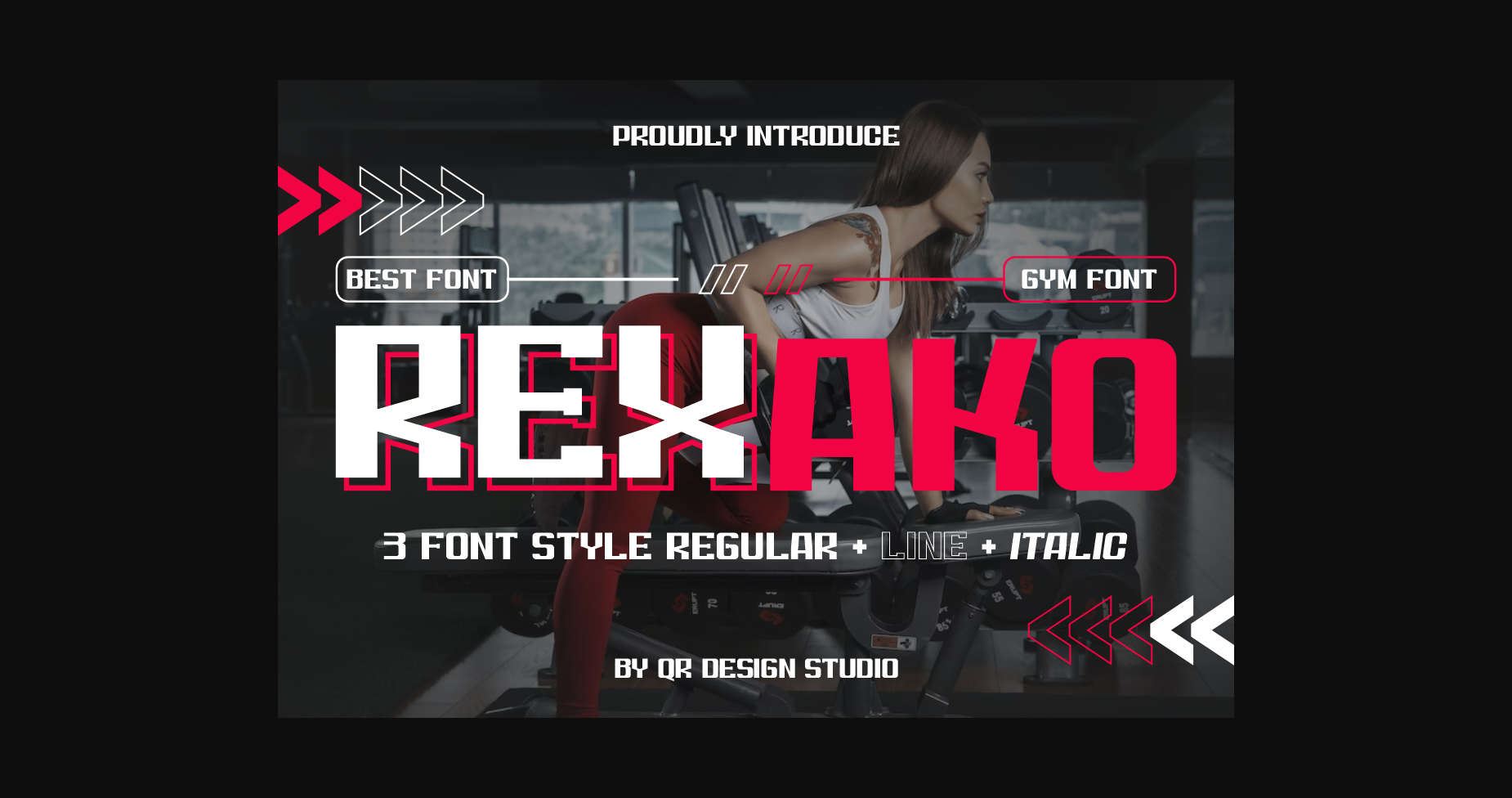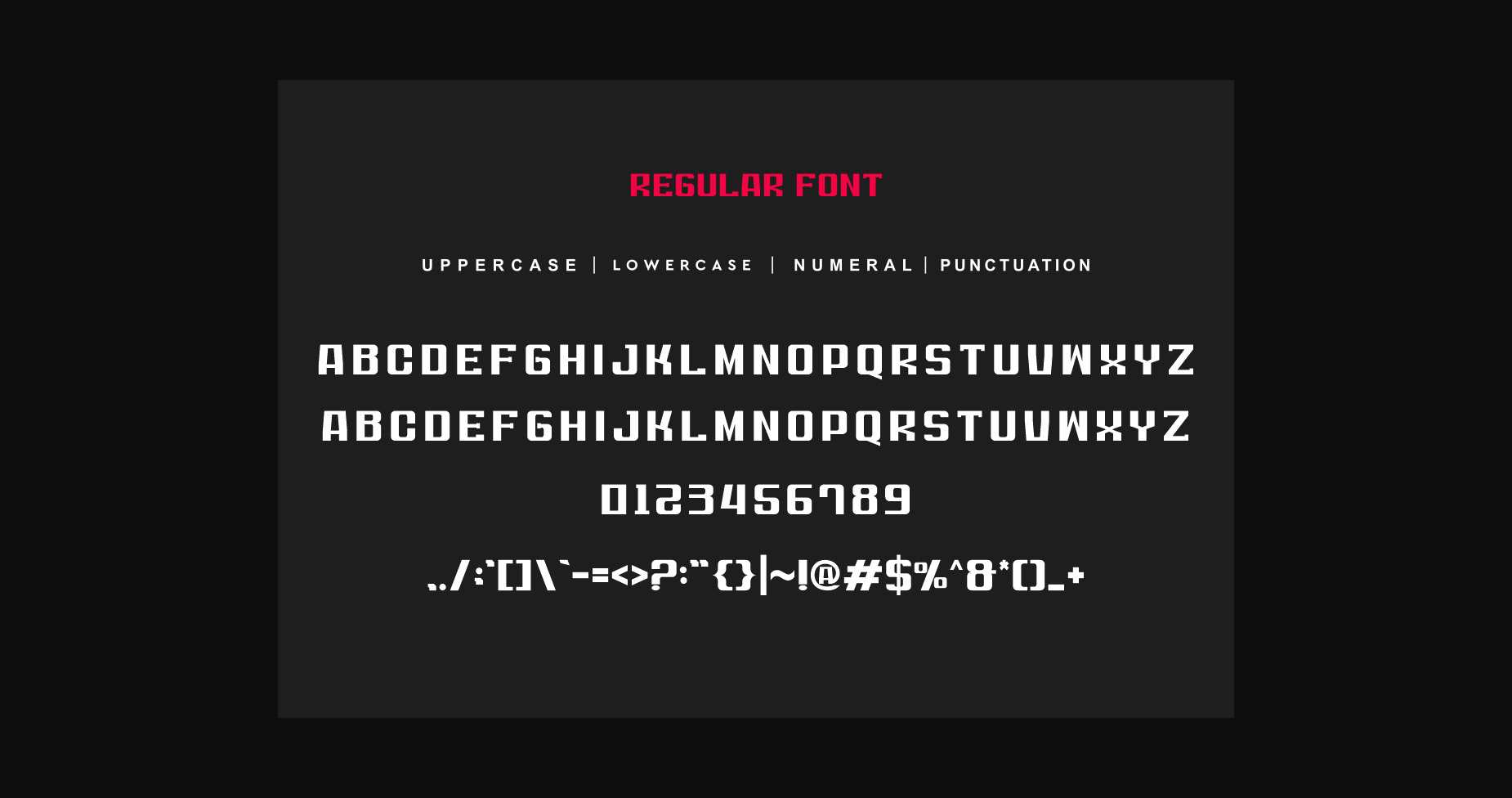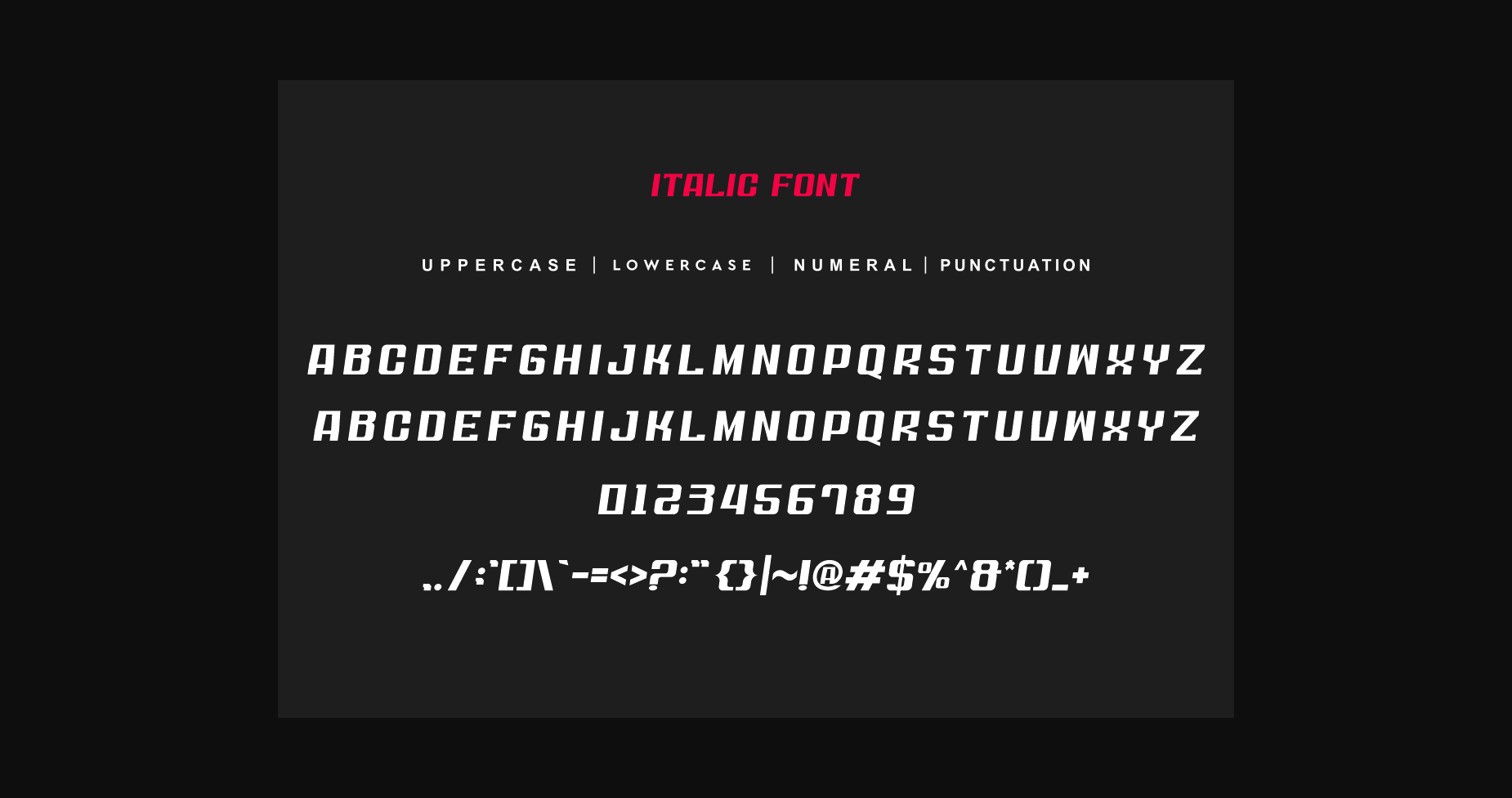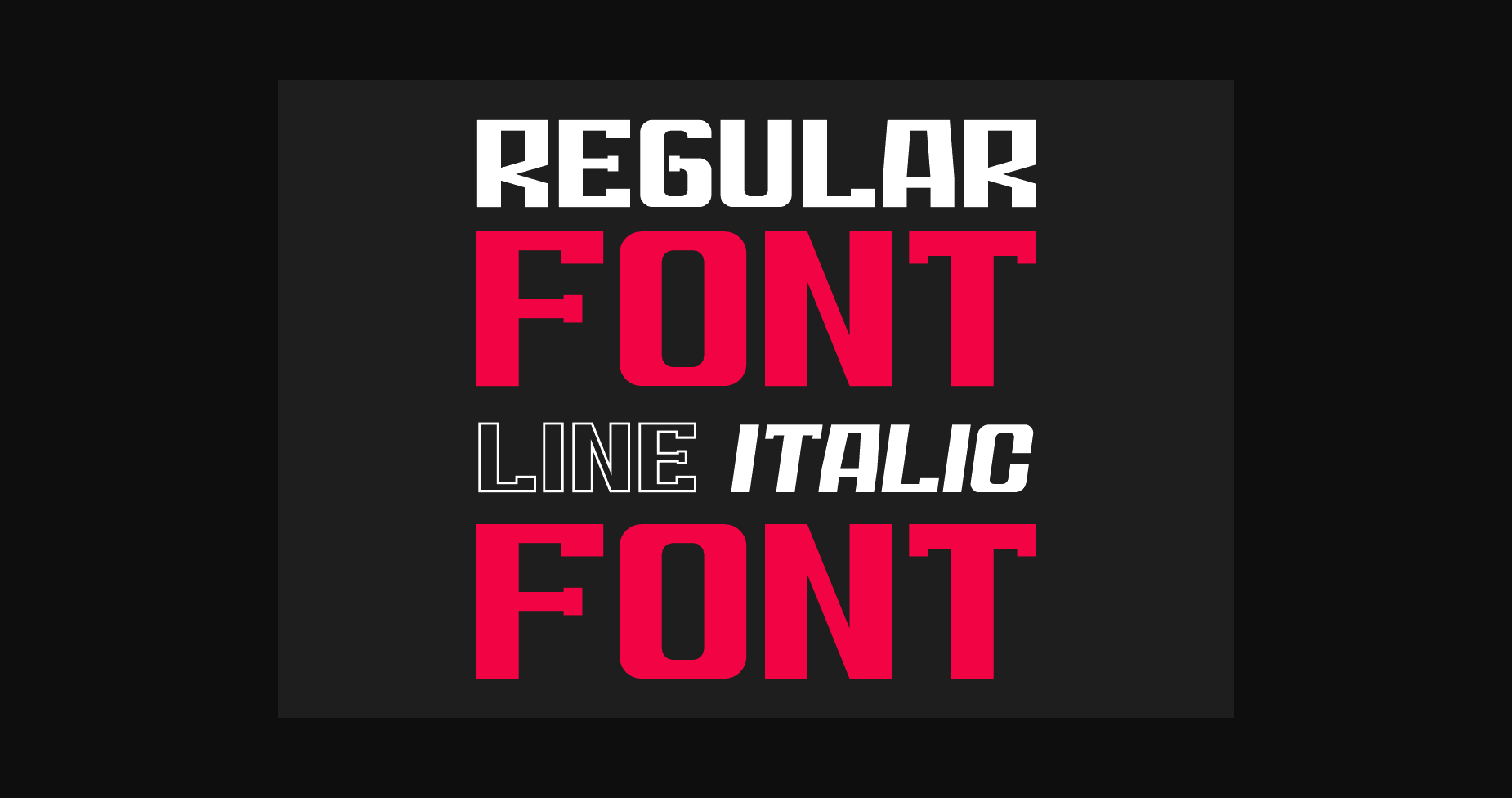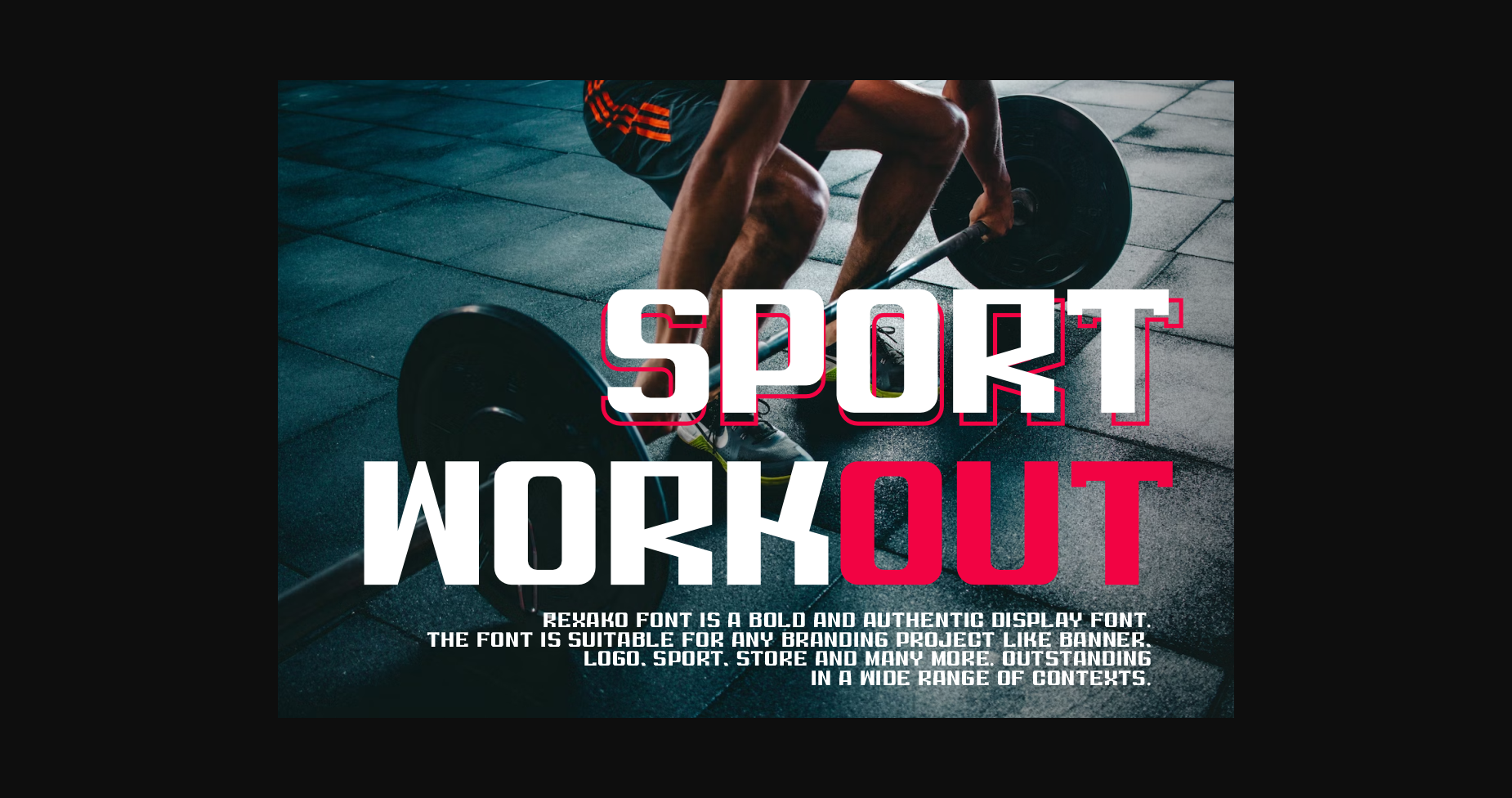
About Rexako Font
Rexako feels playfully nostalgic and delivers an incredible vintage
aesthetic. Use this serif font to add that special retro touch to any design idea you can think of!